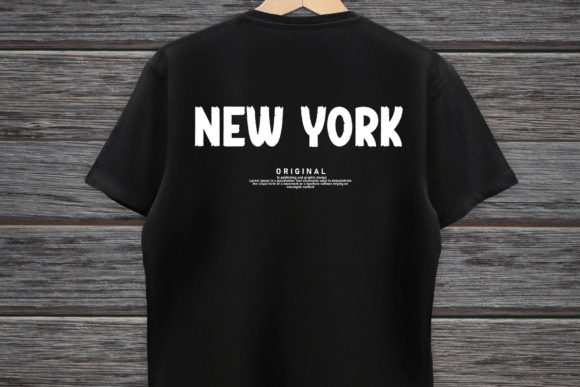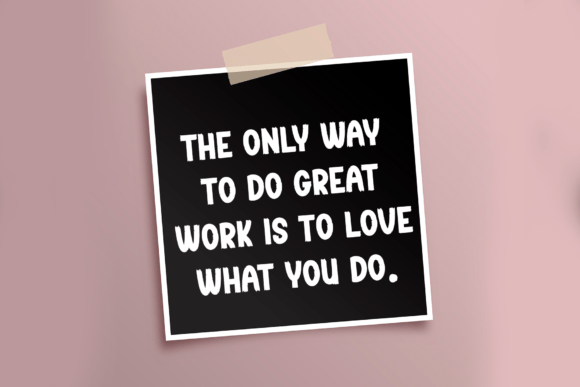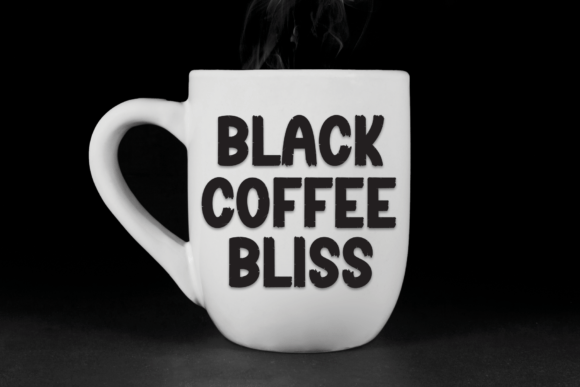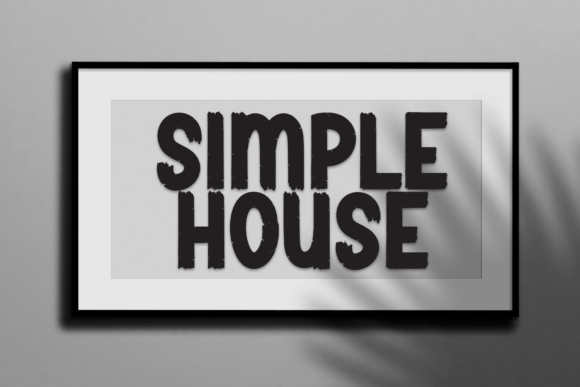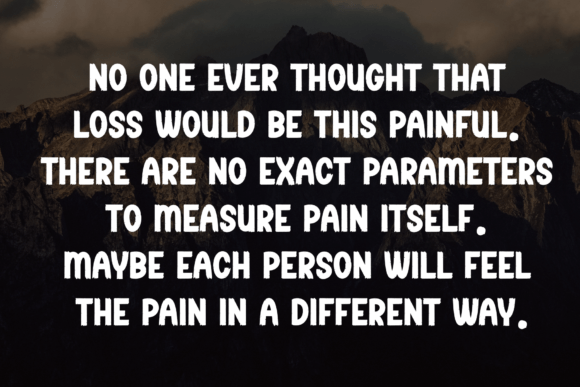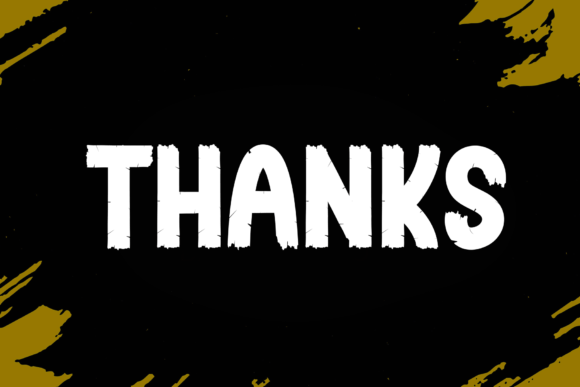
Unleash Your Creativity with Brush Spooky Font
Are you a designer, crafter, or DIY enthusiast looking for a unique and friendly font to add a personal touch to your projects? Look no further than Brush Spooky Font! This sweet and friendly handwritten font is perfect for a wide range of designs, from spooky-themed crafts to whimsical wedding invitations. In this article, we’ll dive into the world of Brush Spooky Font and explore its features, uses, and benefits.
What is Brush Spooky Font?
Brush Spooky Font is a beautiful, handwritten font that exudes a natural and unique style. Its irregularities and imperfections give it a charming, homemade feel that’s perfect for adding a personal touch to your designs. The font’s friendly and approachable vibe makes it suitable for a variety of projects, from playful kids’ party invitations to sophisticated branding materials.
Key Features of Brush Spooky Font
- Handwritten style: Brush Spooky Font is a genuine handwritten font, crafted to resemble the natural flow and imperfections of handwriting.
- Unique and distinctive: The font’s irregularities and quirks make it stand out from more traditional fonts, adding a touch of personality to your designs.
- Versatile: Brush Spooky Font is incredibly versatile, suitable for a wide range of projects, from digital designs to print materials.
- Easy to read: Despite its playful nature, Brush Spooky Font remains easy to read, making it perfect for body text and headlines.
Uses for Brush Spooky Font
The possibilities are endless with Brush Spooky Font! Here are some ideas to get you started:
- Halloween-themed designs: Create spooky yet friendly invitations, party decorations, and social media graphics with Brush Spooky Font.
- Wedding and event invitations: Add a touch of whimsy and romance to your wedding invitations, save-the-dates, and event announcements.
- Branding and packaging: Use Brush Spooky Font to create unique and eye-catching branding materials, such as logos, labels, and packaging.
- Crafting and DIY projects: Add a personal touch to your crafting and DIY projects, such as handmade cards, gift tags, and scrapbooking.
Benefits of Using Brush Spooky Font
So why choose Brush Spooky Font for your next project? Here are just a few benefits:
- Adds personality: Brush Spooky Font brings a unique and playful personality to your designs, setting them apart from more generic fonts.
- Easy to use: The font is incredibly easy to use, even for those without extensive design experience.
- Highly versatile: Brush Spooky Font can be used for a wide range of projects, from digital designs to print materials.
Tips for Using Brush Spooky Font
To get the most out of Brush Spooky Font, here are a few tips:
- Experiment with colors: Brush Spooky Font looks great in a variety of colors, so don’t be afraid to experiment and find the perfect hue for your design.
- Mix and match: Combine Brush Spooky Font with other fonts and design elements to create a unique and eye-catching design.
- Keep it simple: Don’t overcomplicate your design – Brush Spooky Font shines when used in simple, yet effective designs.
In conclusion, Brush Spooky Font is a sweet and friendly handwritten font that’s perfect for designers, crafters, and DIY enthusiasts. Its natural and unique style makes it incredibly fitting for a large pool of designs, and its versatility and ease of use make it a cost-effective solution. Whether you’re creating spooky-themed designs or whimsical wedding invitations, Brush Spooky Font is sure to add a touch of personality and charm to your projects.